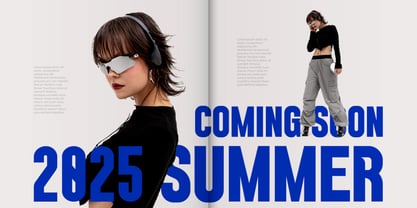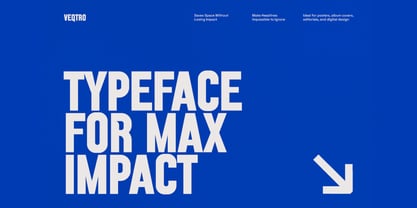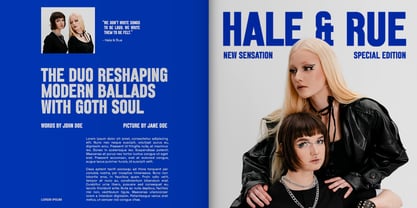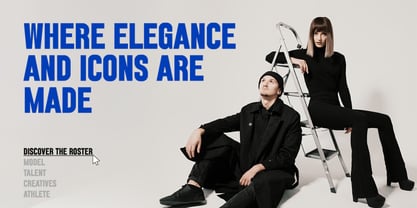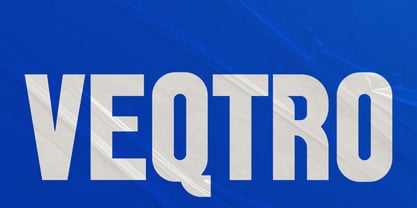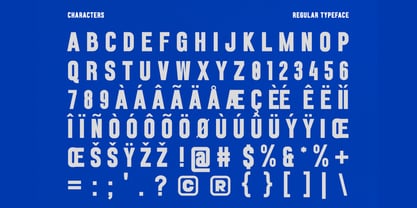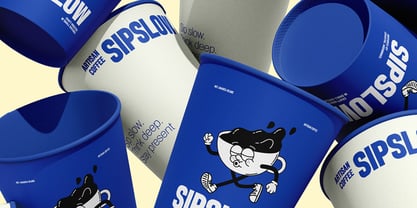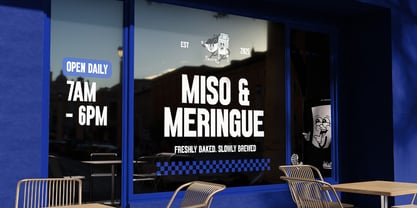
Veqtro
Veqtro Condensed Typeface delivers powerful visual impact with a modern industrial edge. Its tall, compact letterforms and bold geometric structure command attention in any layout, balancing clarity with strength. Designed for versatility, Veqtro embodies precision and control — perfect for modern branding, editorial design, and impactful display typography. The typeface includes uppercase, numerals, punctuation, and multilingual accents, making it suitable for posters, sports branding, packaging, and digital interfaces where a sharp, confident voice is essential.